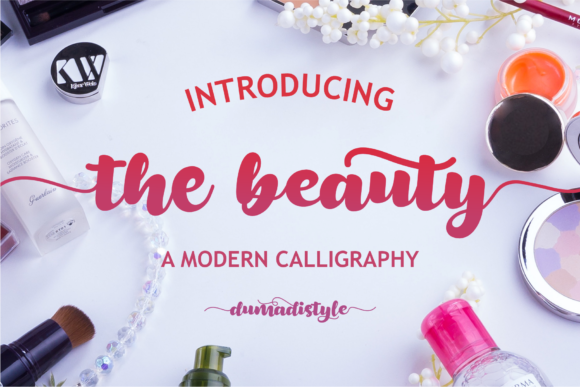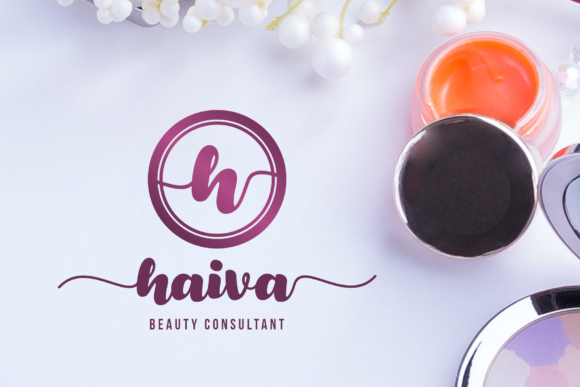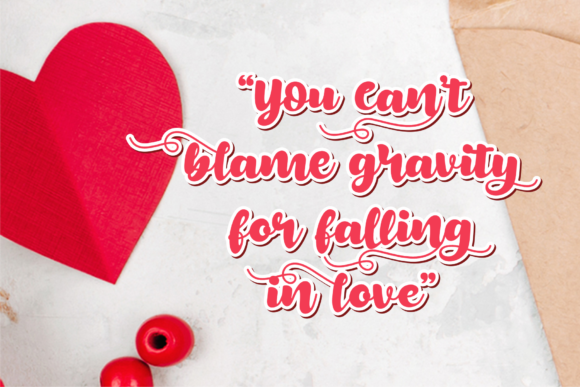
The Beauty Font
The Beauty is a magical handwritten font carefully created with a touch of elegance. It features an incredibly classic style, while still keeping a friendly feel. This font is the perfect font for making original and outstanding designs.